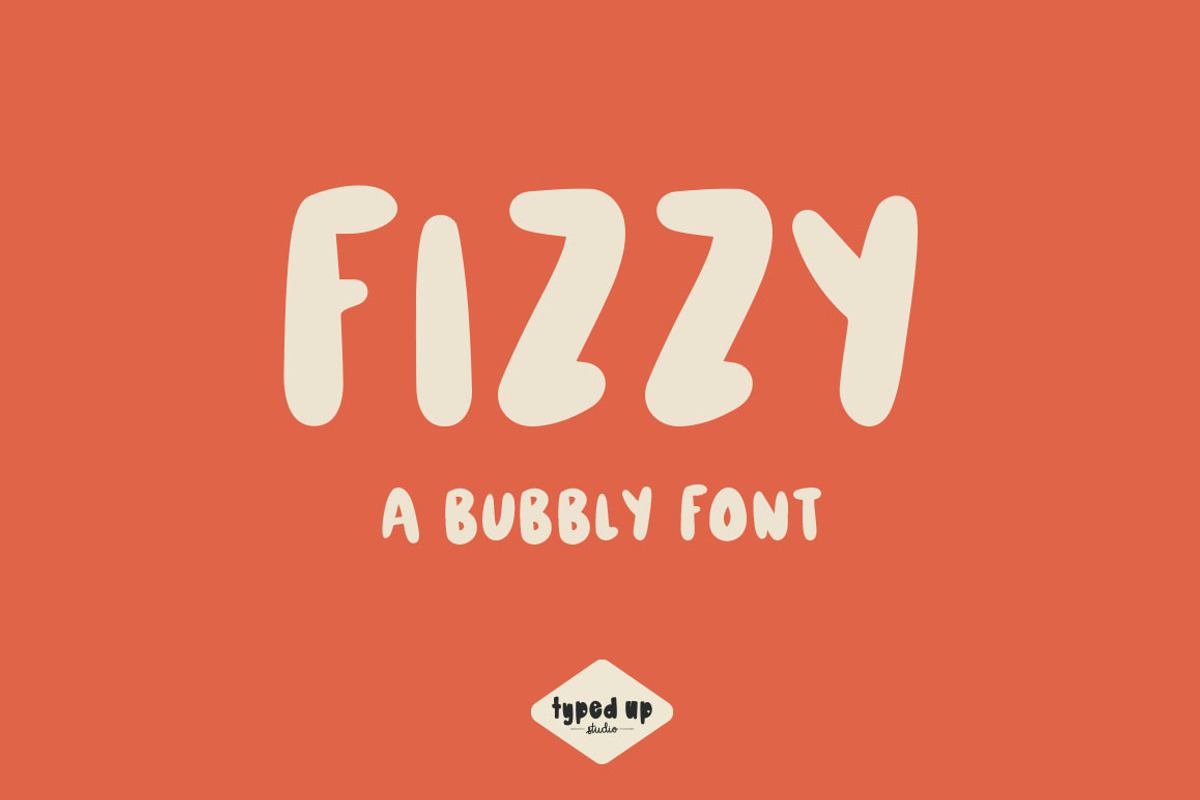
Fizzy | Bubbly Display Font Free Download
Fizzy Font Free Download is a playful and energetic bubbly display typeface that brings fun and personality to any creative project. With its rounded, bubbly letterforms and lively design, Fizzy is perfect for children's products, playful branding, party invitations, product packaging, social media graphics, and any project that needs a bright, cheerful touch.
Fizzy Font Free Download captures a sense of joy and lightness with its smooth, curved letters and dynamic feel. Whether you're creating a logo, designing an event flyer, or adding a pop of fun to your website, this font gives your designs a fresh, youthful vibe that stands out.
Fizzy pairs well with clean sans-serifs or playful script fonts for even more personality, offering endless creative possibilities. Its bold, bubbly style ensures that it grabs attention and conveys a sense of fun and positivity.